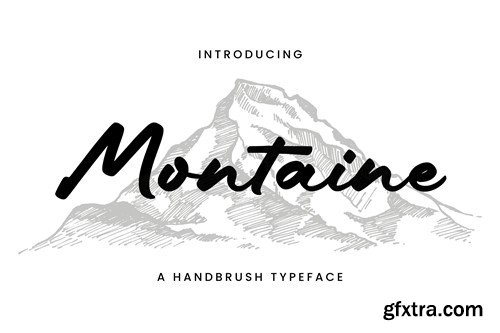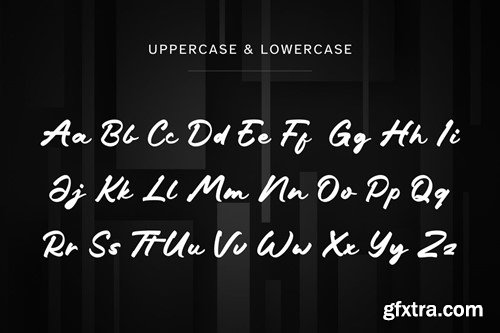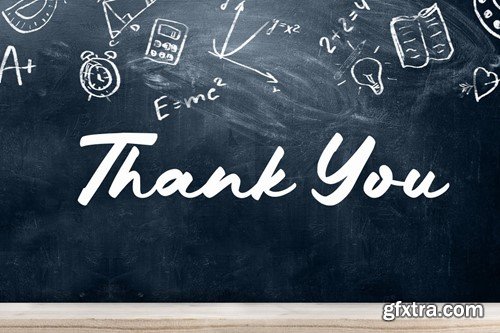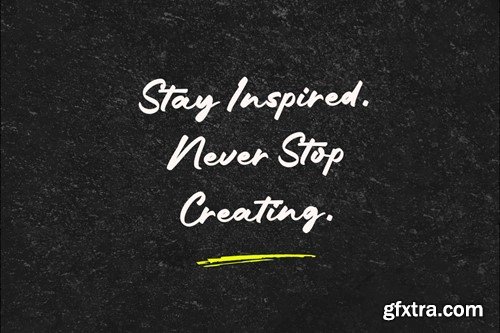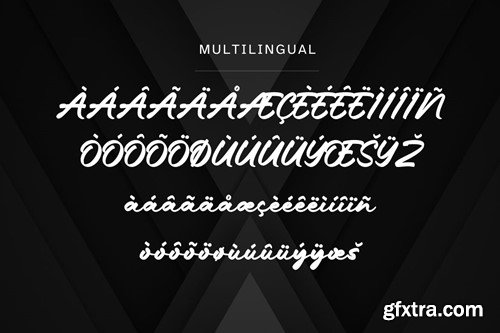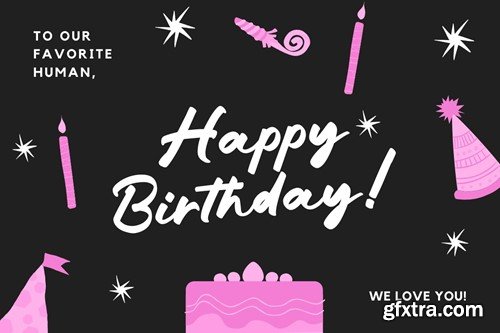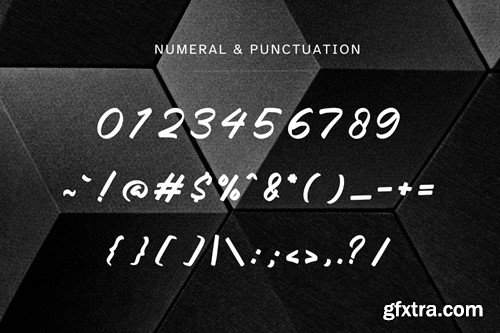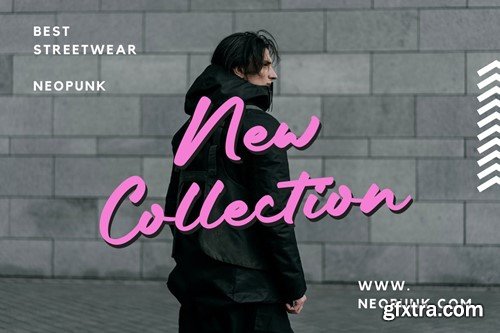
montaine - 一种手绘字体 ytt6x5l
Montaine - A Handbrush Typeface Montaine brings a touch of raw authenticity to your design projects with its handcrafted charm and dynamic brush strokes. This versatile typeface exudes energy and personality, making it perfect for a wide range of creative endeavors, from branding and advertising to packaging and social media posts. Whether you're aiming for a rugged urban vibe or a playful and whimsical feel, Montaine delivers with its bold and expressive letterforms. Each character is meticulously crafted to maintain a balance between spontaneity and legibility, ensuring that your message comes across loud and clear. Elevate your designs to new heights and make a lasting impression with Montaine's distinctive style and character. What’s Included : Thank you